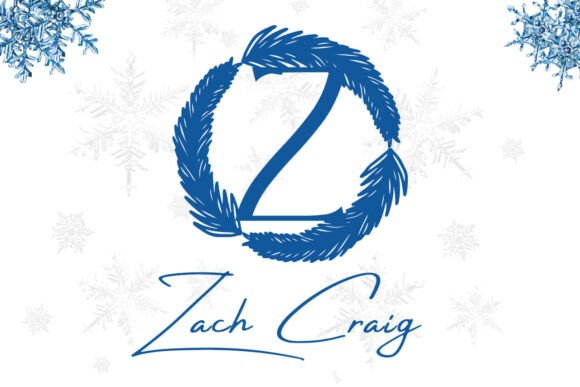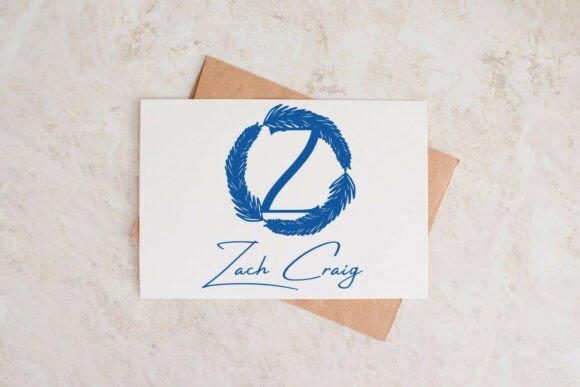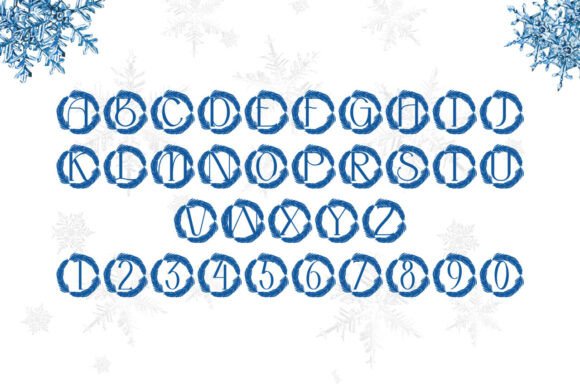
Meet Brixton, the Monogram Font That Elevates Initials to Bold, Boutique-Ready Emblems
In the world of design, a well-crafted monogram font can make all the difference in creating a lasting impression. Introducing Brixton Monogram Font, a modern and sophisticated typeface that transforms simple initials into bold, boutique-ready emblems. With its smooth and confident strokes, generous counters, and balanced proportions, Brixton is the perfect choice for designers and crafters looking to add a touch of elegance to their projects.
The Characteristics of Brixton Monogram Font
Brixton Monogram Font is designed with modern clarity in mind, making it an ideal choice for a variety of applications, including wedding suites, boutique logos, keepsake gifts, wax seals, and elegant packaging. The font’s smooth strokes and generous counters ensure that even tiny tags are readable, while its balanced proportions deliver a premium look at any size.
One of the standout features of Brixton is its versatility. It pairs beautifully with refined serifs and quiet humanist sans fonts, making it easy to create polished layouts without extra work. This means that designers can focus on the creative aspects of their project, rather than worrying about font compatibility.
Where Brixton Monogram Font Shines
Brixton Monogram Font truly shines when used to create single, double, or triple initials for logos, seals, menus, and place cards. The font’s metrics favor symmetry and clarity, making it easy to compose centered marks in minutes. This is particularly useful for designers who need to create a consistent visual identity across multiple platforms, from invitations to signage.
To add an extra touch of sophistication, Brixton can be framed with laurel rings, oval borders, or fine rules to echo the poised geometry of the font. This level of customization makes it easy to create unique and eye-catching designs that stand out from the crowd.
Practical Applications of Brixton Monogram Font
Brixton Monogram Font is a versatile typeface that can be used in a wide range of applications, including:
- Wedding suites: Create elegant and sophisticated wedding invitations, place cards, and stationery with Brixton’s bold and modern monograms.
- Boutique logos: Use Brixton to create eye-catching logos for boutiques, fashion brands, and other businesses that require a touch of elegance and sophistication.
- Keepseake gifts: Add a personal touch to keepsake gifts, such as jewelry, candles, and other luxury items, with Brixton’s beautiful monograms.
- Wax seals: Create custom wax seals with Brixton’s elegant monograms for a unique and sophisticated touch.
- Elegant packaging: Use Brixton to add a touch of luxury to packaging designs, from jewelry boxes to high-end cosmetics.
Fast Setup, Premium Results
One of the best things about Brixton Monogram Font is how easy it is to set up and use. The font scales smoothly from jewelry cards to entry displays, making it easy to create a consistent visual identity across multiple platforms. This means that designers can focus on the creative aspects of their project, rather than worrying about technical details.
In addition, Brixton’s fast setup and premium results make it an ideal choice for designers and crafters who need to deliver high-quality results quickly. Whether you’re working on a tight deadline or simply want to create beautiful designs with ease, Brixton Monogram Font is the perfect choice.
In conclusion, Brixton Monogram Font is a modern and sophisticated typeface that elevates simple initials to bold, boutique-ready emblems. With its smooth and confident strokes, generous counters, and balanced proportions, Brixton is the perfect choice for designers and crafters looking to add a touch of elegance to their projects. Its versatility, practical applications, and fast setup make it an ideal choice for a wide range of projects, from wedding suites to elegant packaging. If you’re looking for a high-quality monogram font that delivers premium results, look no further than Brixton.